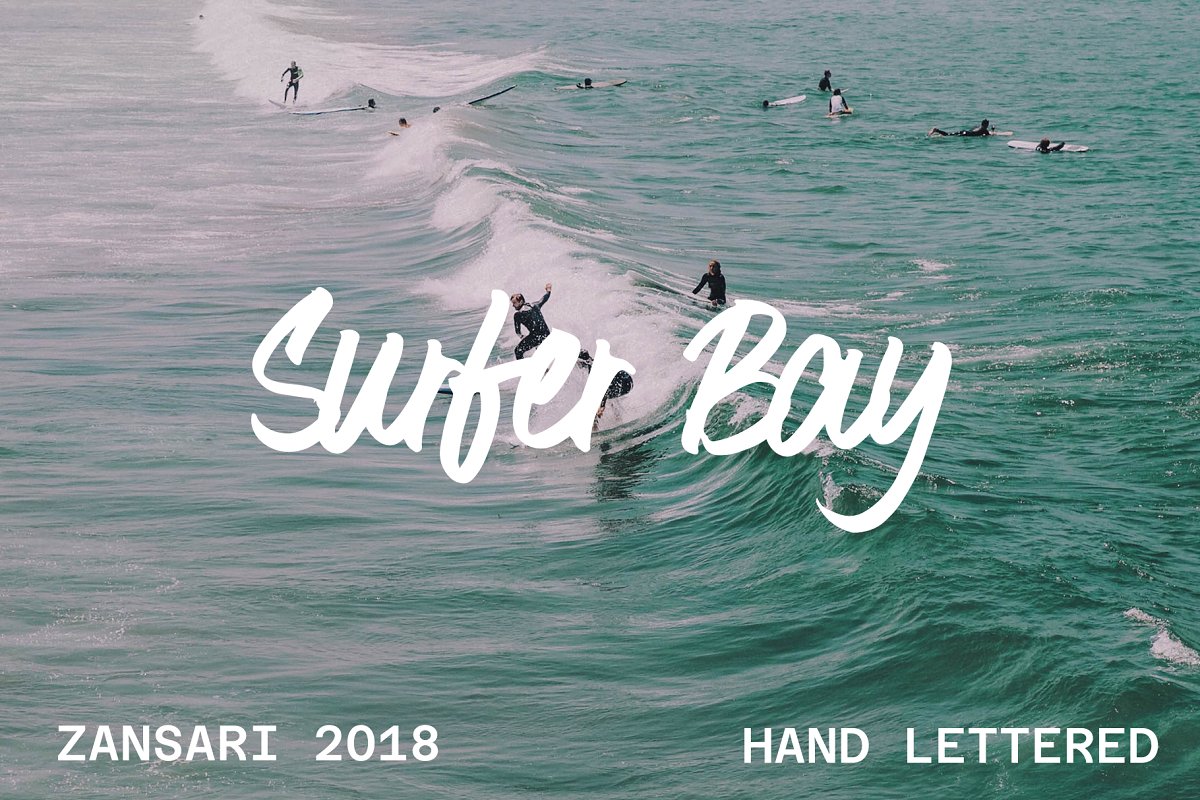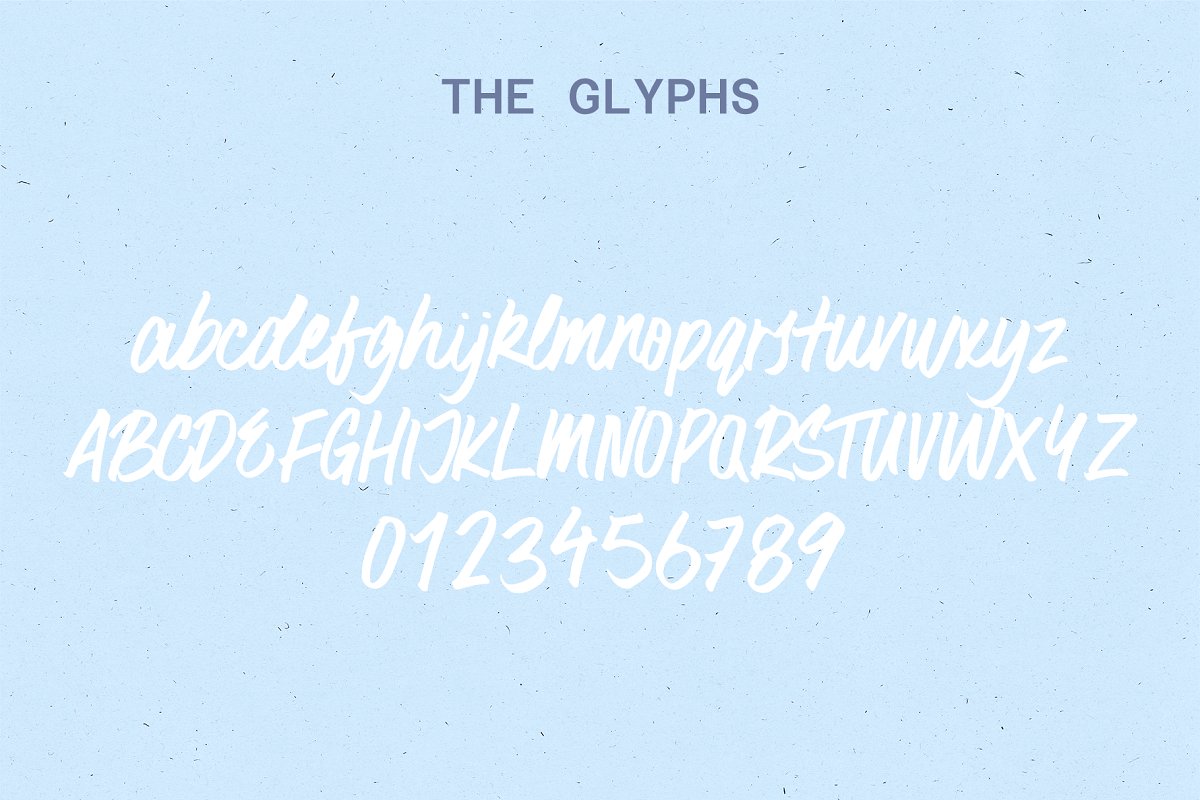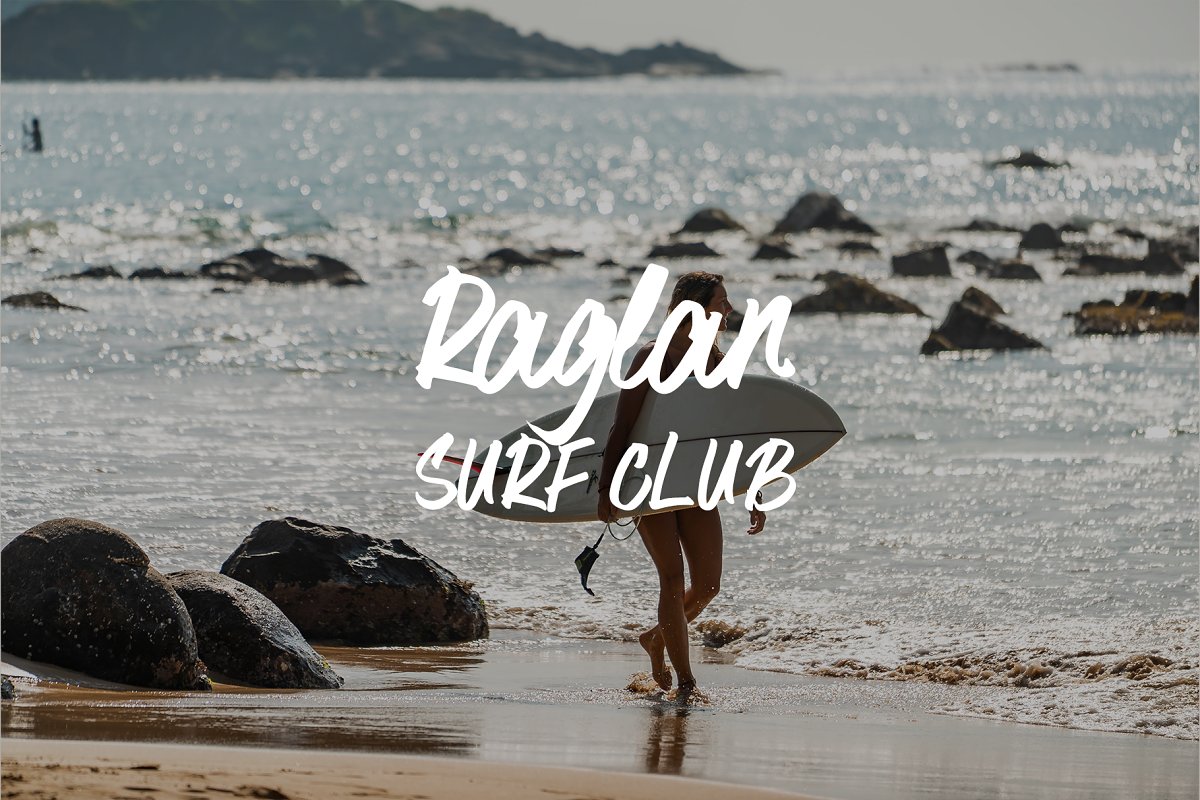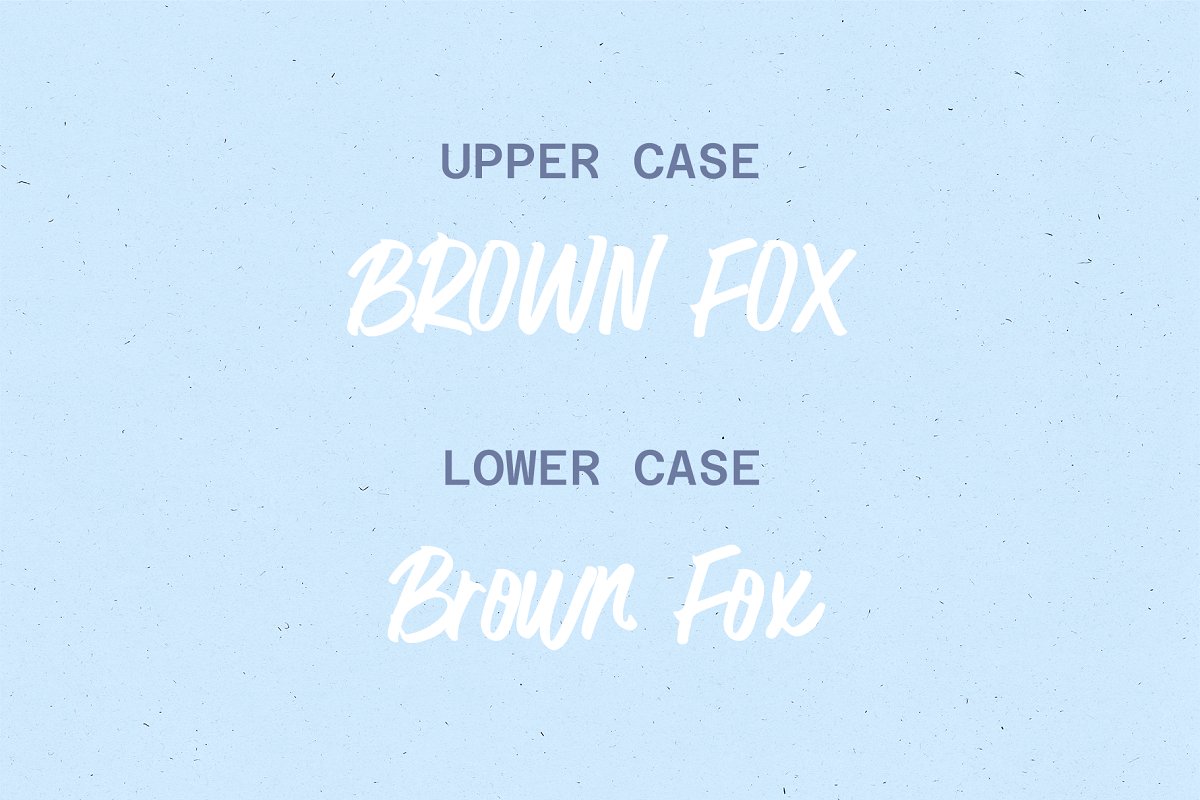
About the Surfer bay brush Font
Tell me about yourself Surfer Bay brush font is a modern and beachy styled font, The characters were hand painted, then scanned and vectorised into a digital font file, Surfer Bay brush font was designed by Zansari font foundry in Auckland, New ZealandI go well withThis font would be perfect for advertisements, logos and crafts like quote posters